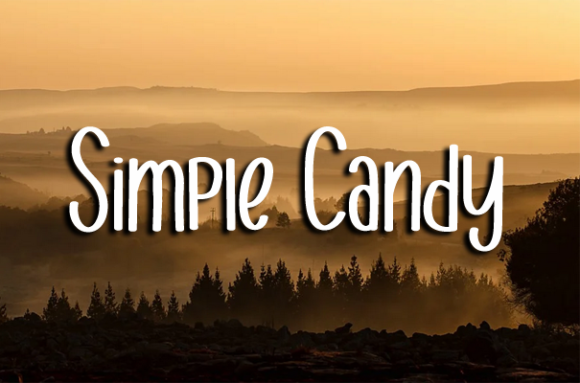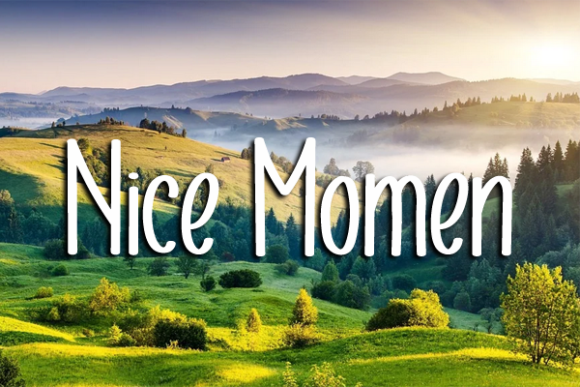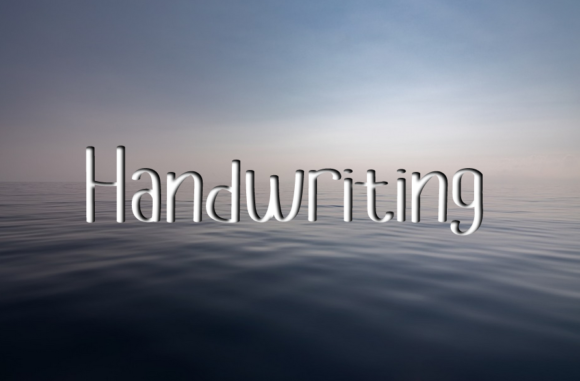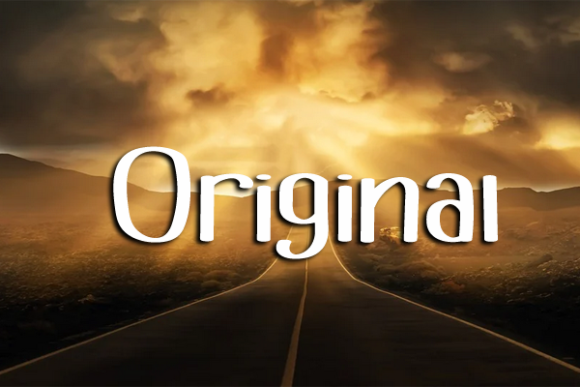
Simple Candy Font
About Simple Candy Font
Simple Candy is a unique and skinny looking handwritten font. Simple but with a strong visual effect, this font will instantly make your creation more appealing than any others.